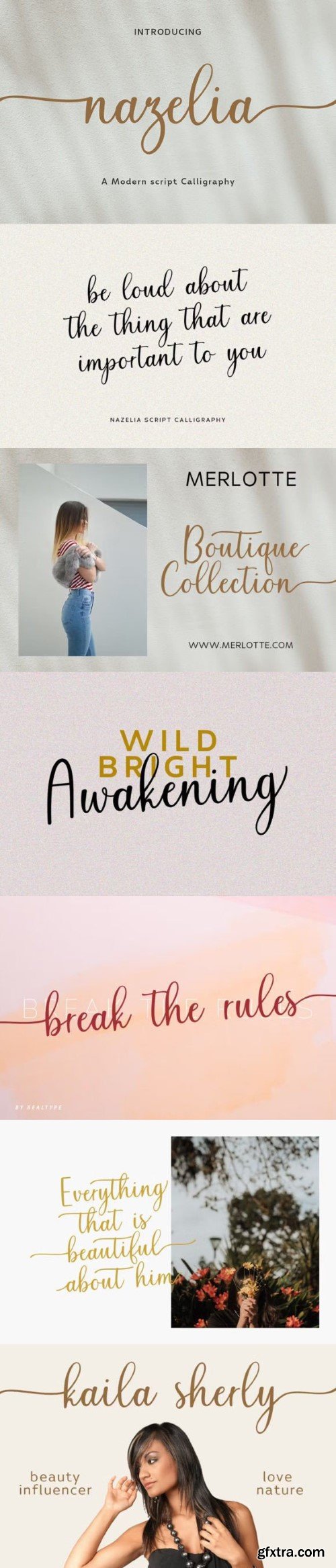
Introducing Nazelia Modern Script Calligraphy Font.
This font is very easy to use and playful. You can explore to create a combination that would be nice. Comes with a modern style, handmade and clean. Nazelia includes swashes, Alternate, and International support for most Western Languages.